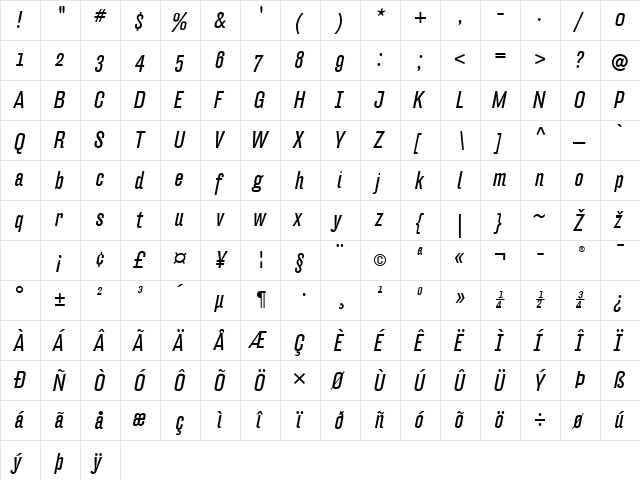
Hydra-BookItalic Regular
| Designer | Silvio Napoleone |
Design Context for Hydra-BookItalic Typeface
Hydra-BookItalic is a composed and adaptable typeface that performs quietly and consistently across a wide range of design contexts. The dynamic lean of this cut emphasises speed and emphasis in any layout.